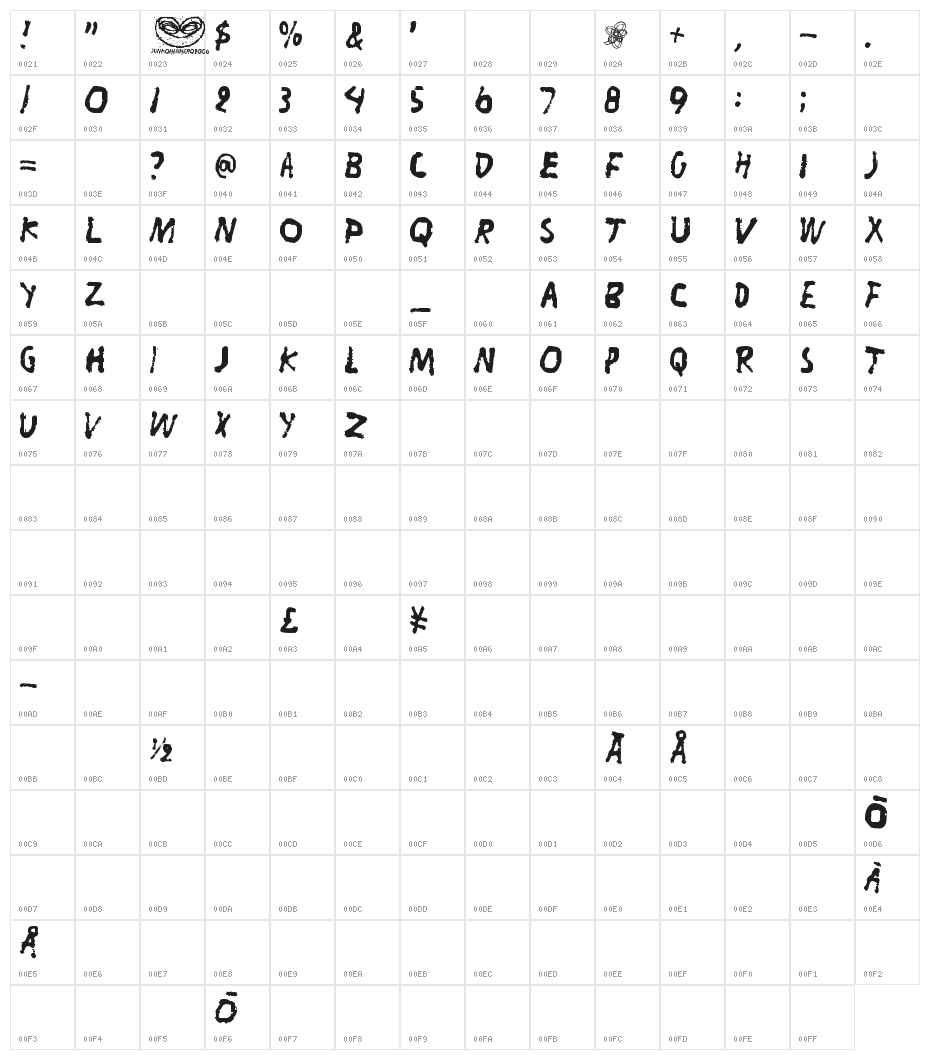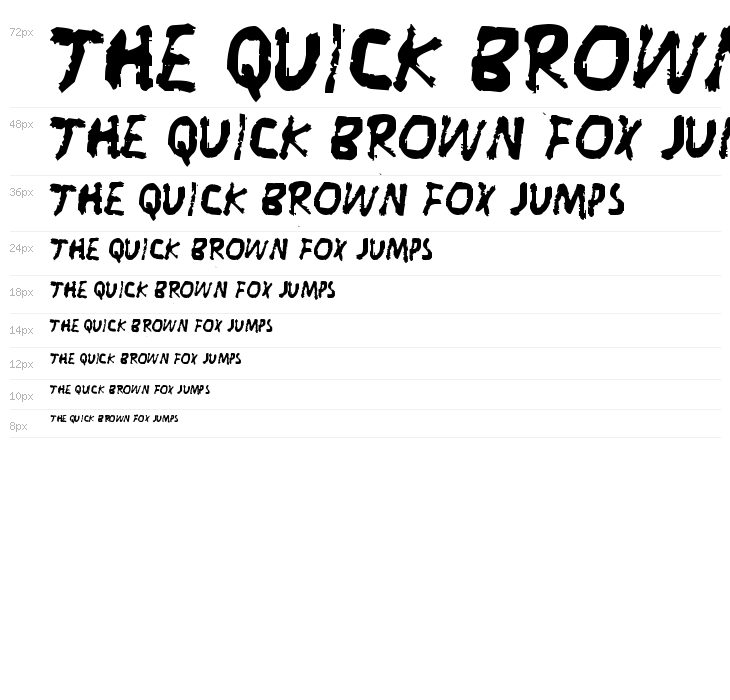
Liitu Font
Liitu Description
This font features a bold and expressive style with a brush-like texture, giving it a dynamic and energetic appearance. The characters are irregular and have a hand-painted feel, with varying stroke thicknesses that add to its artistic flair. The uppercase and lowercase letters maintain a consistent style, while the numbers and special characters complement the overall aesthetic. This font's unique and edgy design makes it stand out, perfect for projects that require a strong visual impact.
Overall StyleModern, Artistic
Use CaseHeadlines, Logos, Artistic projects
Proposed ProjectsIdeal for posters, album covers, graffiti art, and branding that requires a bold and artistic touch.